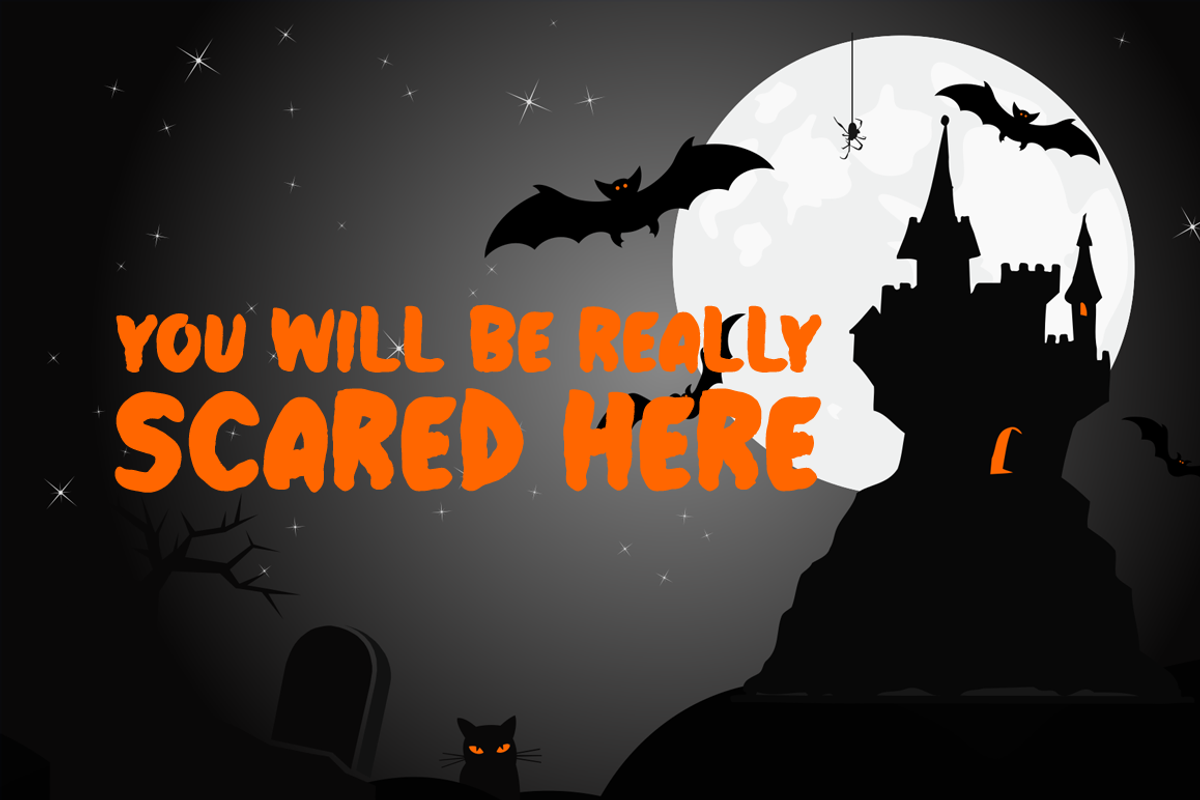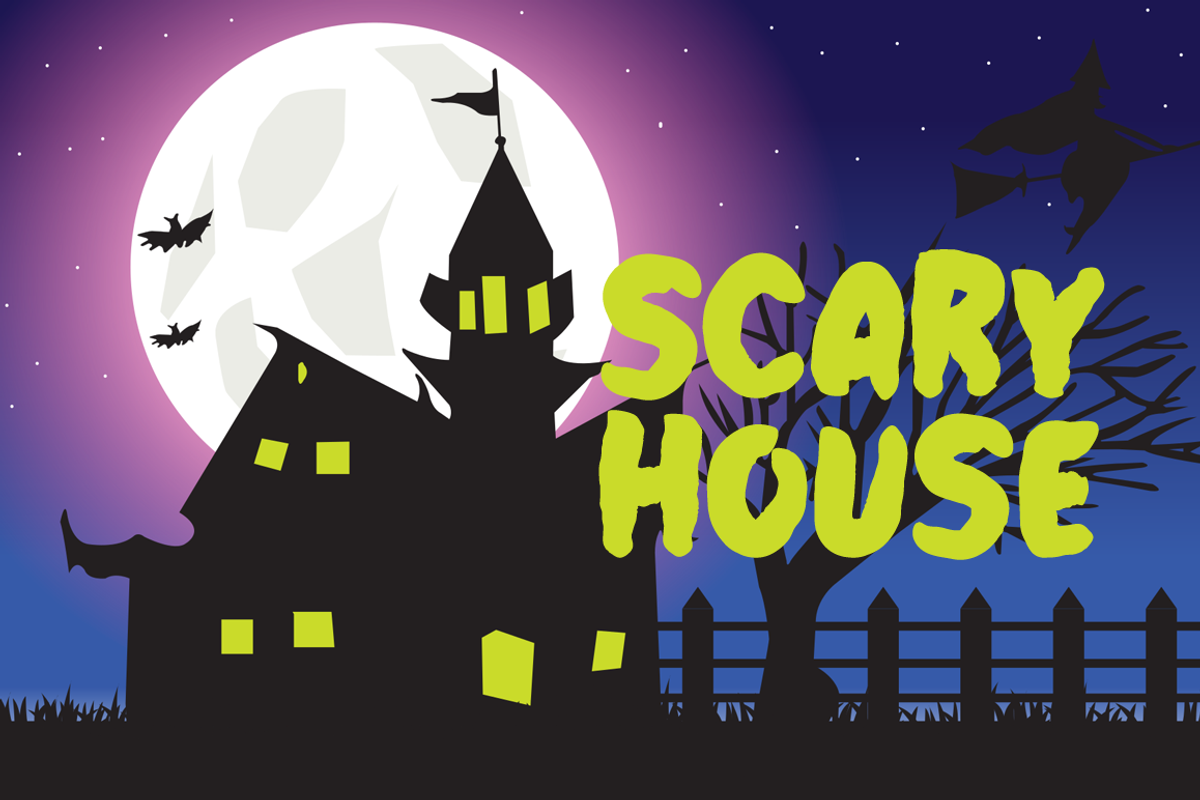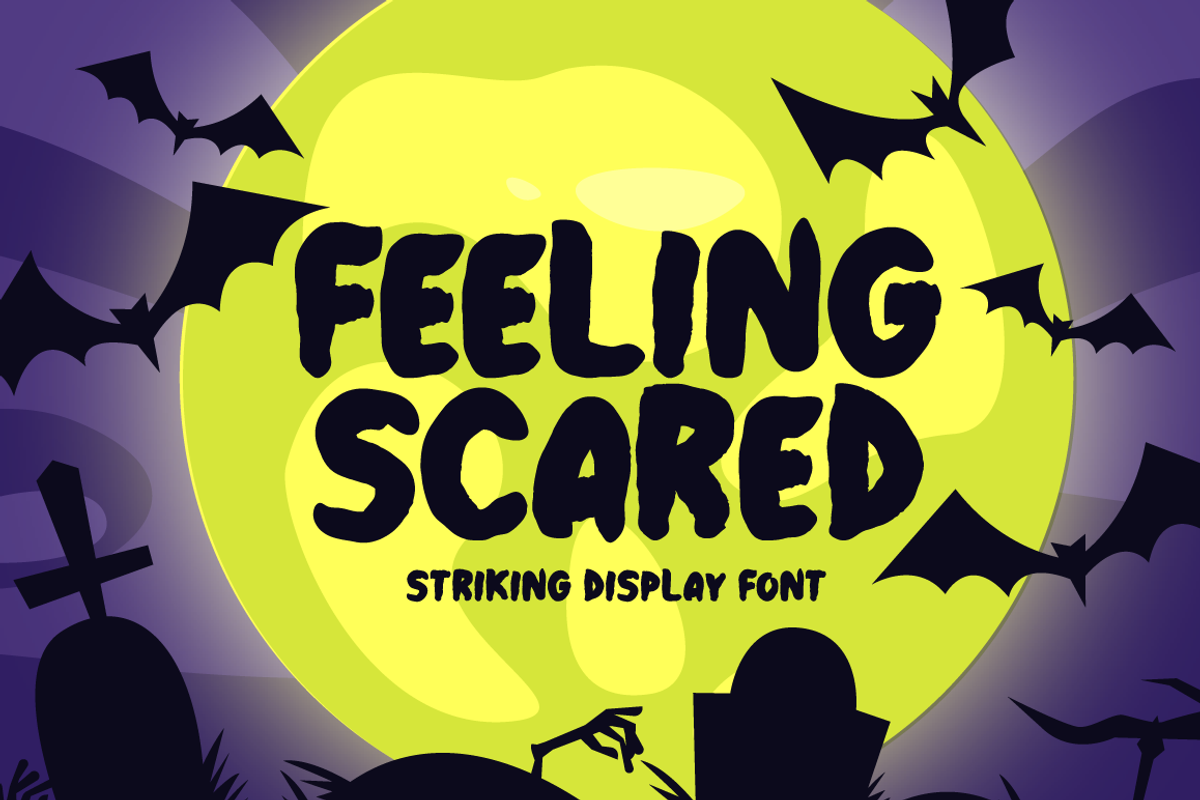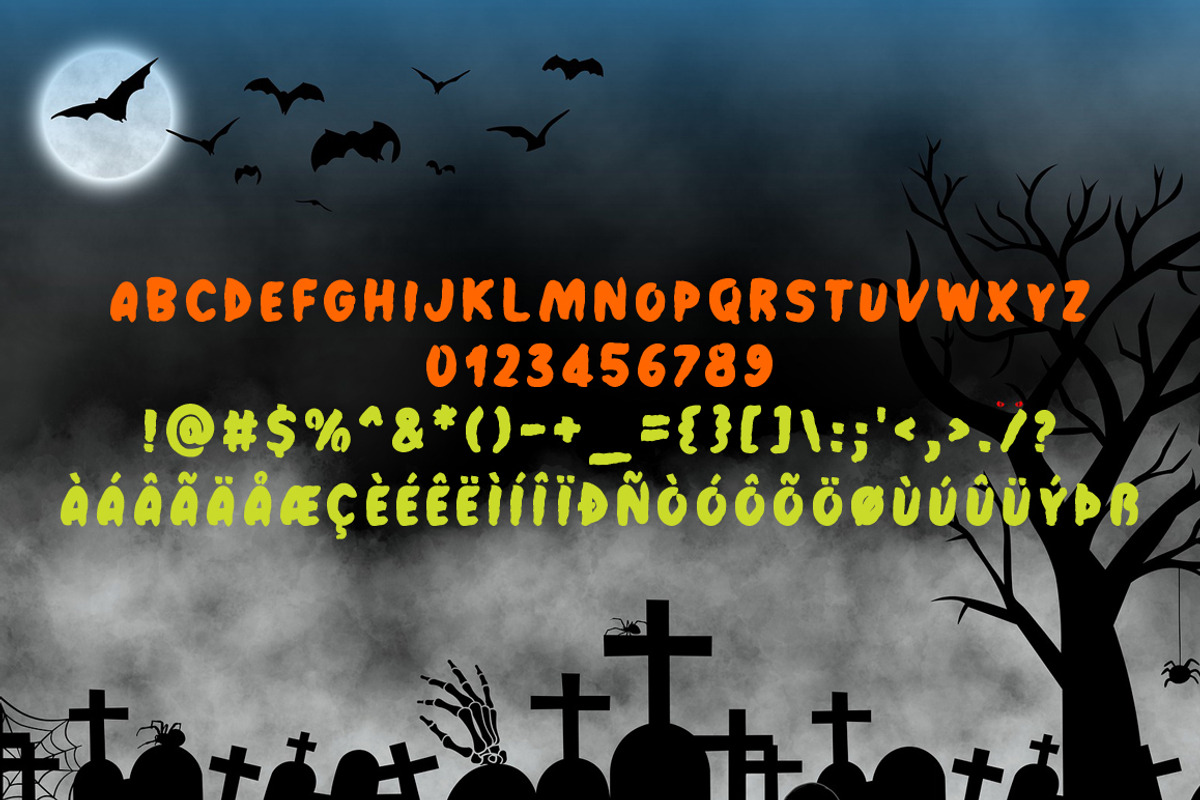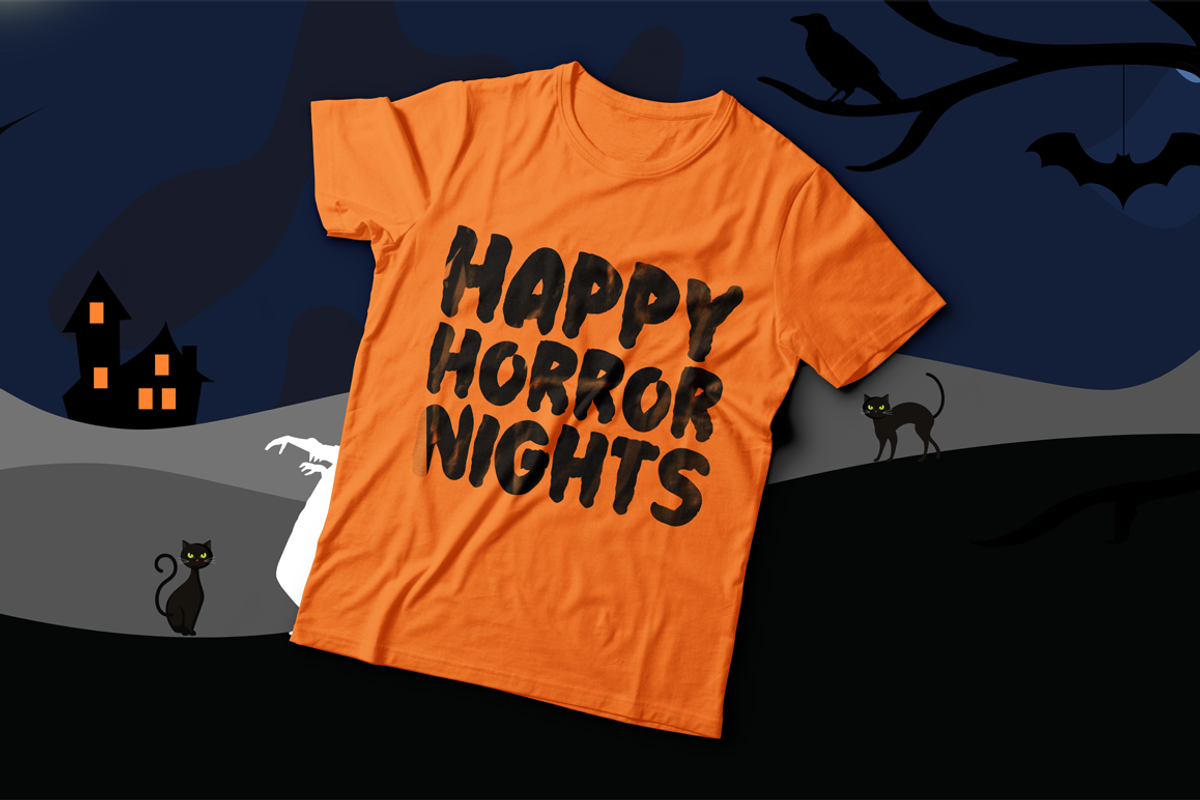
Feeling Scared Typeface
Introducing Feeling Scared!
Feeling Scared is a casual and creepy-looking display font. It is perfectly suitable for any Halloween-related project or crafty idea! The only limit is your imagination.
Includes a range of multilingual support